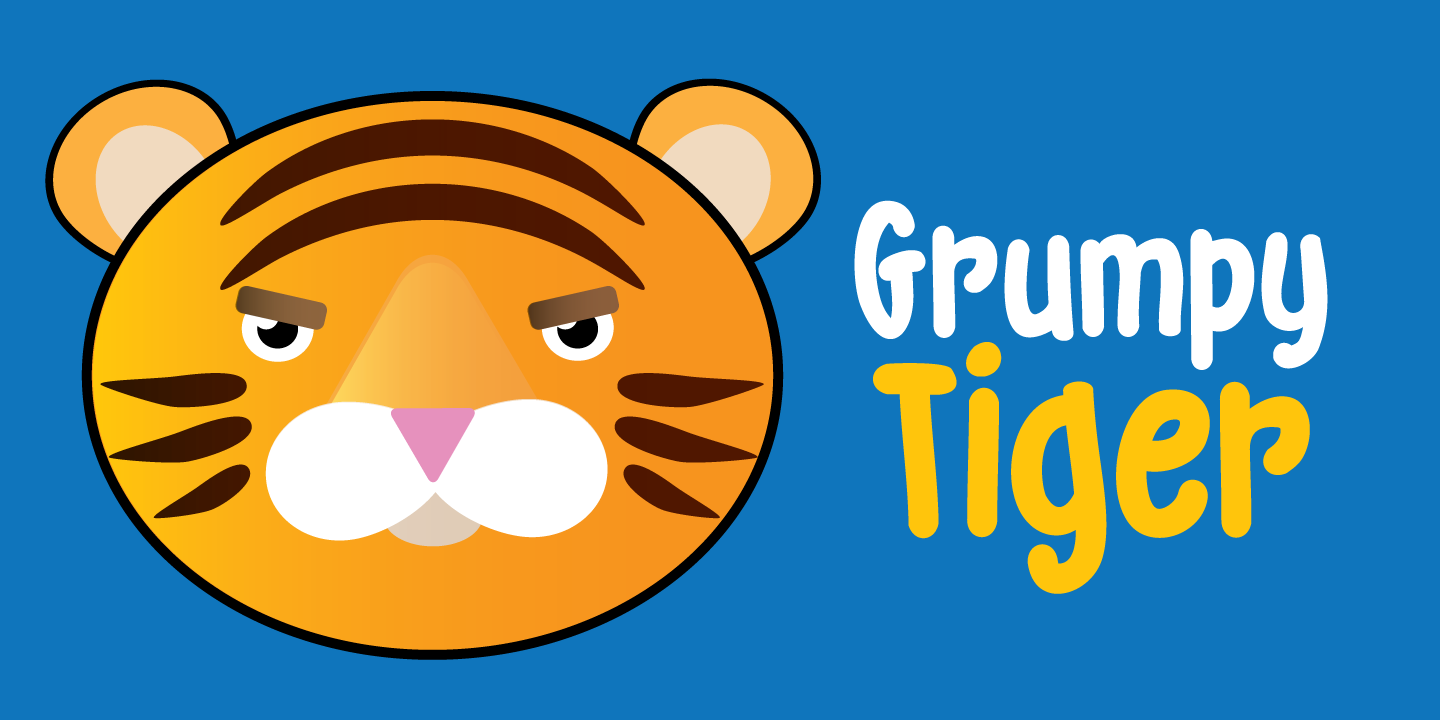
The Grumpy Tiger Font Free Download is ideal for children’s books, playful posters, product packaging, and fun branding, offering a bold, kid-friendly aesthetic.
This font is exciting because its rounded, hand-drawn design with unique tiger illustrations adds a whimsical, approachable charm to any creative project.
The Grumpy Tiger family includes Regular and Italic styles, providing versatile options for dynamic typography.
Capture the playful spirit of childhood with the Grumpy Tiger Font Free Download, a bold, handwritten typeface designed by David Kerkhoff and published by Hanoded in 2017. Known for its rounded, legible glyphs and unique tiger-themed special characters, Grumpy Tiger is perfect for creating vibrant headlines, logos, or kid-friendly designs. With 145+ glyphs and support for multiple languages, including English, Javanese, and Italian, it’s available in OTF, TTF, and WOFF formats for seamless use across print and digital platforms. As 2025 design trends favor fun, expressive typography, downloading Grumpy Tiger Font Free Download keeps your work lively and engaging. Test it today at dafont.com for personal use, and consider purchasing the full version at hanodedfonts.com for commercial projects.